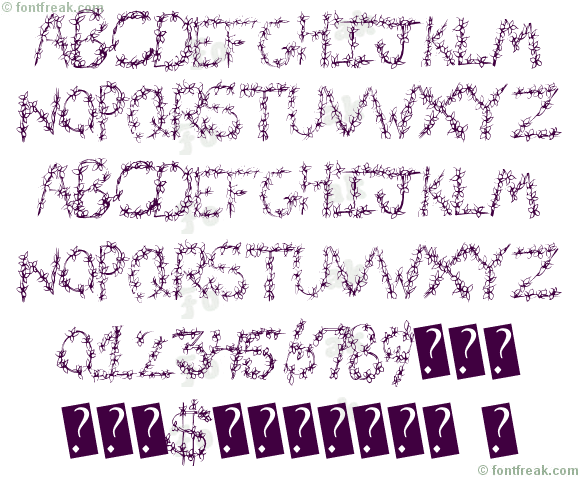
FlowerHeader
FlowerHeader by XEROGRAPHER FONTS is a unique decorative typeface that captures the essence of nature through its intricate design. This font is characterized by its organic, whimsical style, featuring letters that are crafted from delicate floral elements and intertwining vines. The stroke weight is light, giving it an airy feel, while the spacing is carefully balanced to maintain readability despite the playful intricacies of its design. The decorative elements imbue a sense of charm and elegance, making it a standout choice for various creative projects.
Ideal use cases for the FlowerHeader font include wedding invitations, where its romantic aesthetic can enhance the overall theme. It also shines on greeting cards, providing a personalized touch for special occasions. Additionally, this font is perfect for restaurant menus, especially those focusing on fresh, organic cuisine, as it reflects a connection to nature. Graphic designers may find it beneficial for branding projects, particularly for businesses in the floral or artisanal sectors, where a natural design language is key. Content creators can also leverage the FlowerHeader font free download for enhancing their digital content, adding a unique flair to blog headers or social media graphics.
Targeting graphic designers, small business owners, and content creators, FlowerHeader offers a fresh and engaging option for those looking to make a statement. Its playful, floral-inspired design not only captures attention but also evokes a sense of warmth and creativity. This font stands out due to its ability to blend artistry with functionality, making it a versatile choice for any project where a touch of nature is desired. Embrace the beauty of the FlowerHeader font and elevate your designs with its enchanting presence.